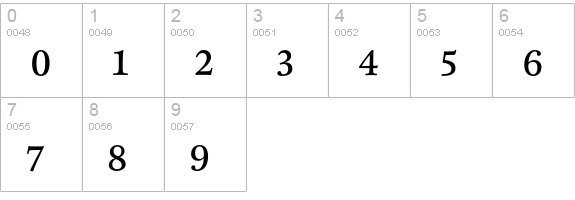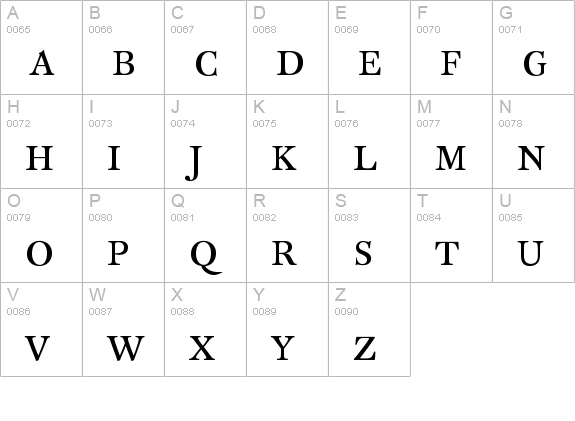
CliffordNine-RomanLF is a stunning and elegant font that exudes sophistication and style. Its sleek lines and classic design make it perfect for a wide range of projects, from branding to editorial design. The font features a unique blend of traditional and modern elements, creating a timeless and versatile typeface that will elevate any design it is used in. Best of all, CliffordNine-RomanLF is available for free download at FontsMarket.com. This means that you can access this premium-quality font without any cost, making it an excellent choice for designers looking to enhance their projects without breaking the bank. Don't miss out on the opportunity to add CliffordNine-RomanLF to your font collection today and take your designs to the next level.